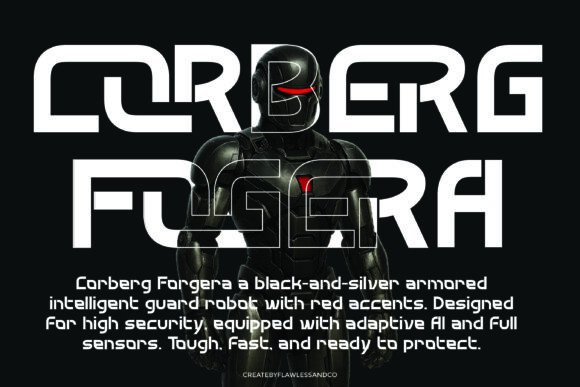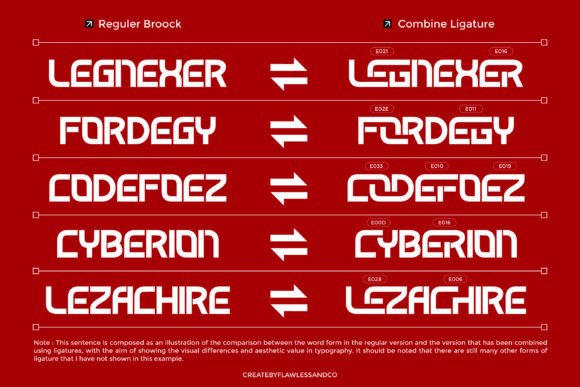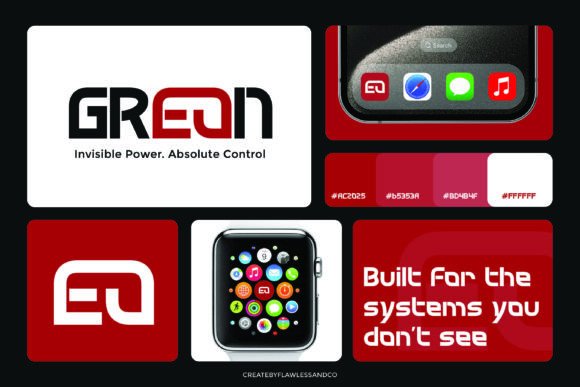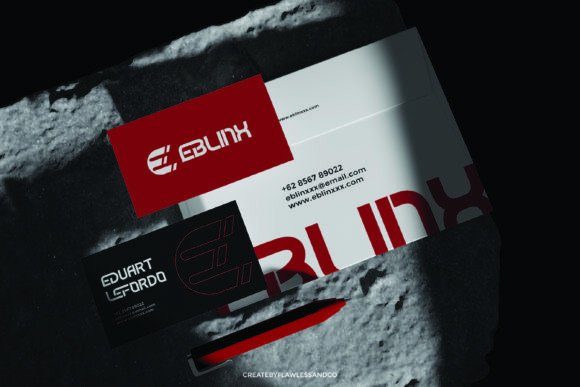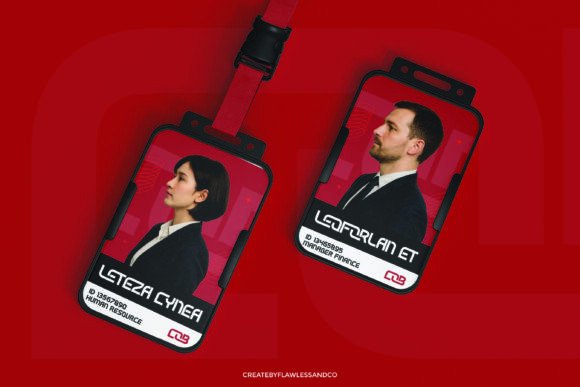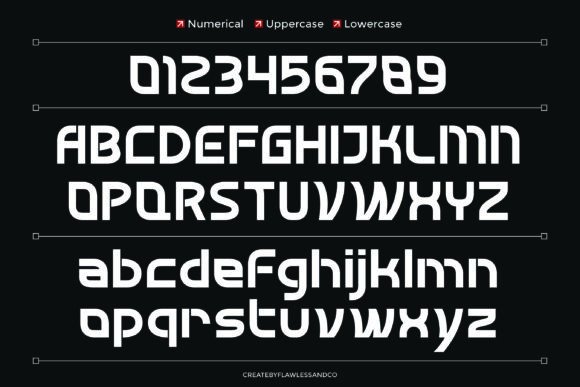
Introducing Broock Font: Elevate Your Brand Identity with Precision and Style
In the world of design, fonts play a crucial role in shaping brand identities. A well-crafted font can instantly convey a brand’s personality, values, and message. For creative professionals, finding the perfect font can be a daunting task. That’s where Broock Font comes in – a modern logo display font designed to make a statement with precision, bold character, and futuristic flair.
Clean Structure, Futuristic Form
Broock Font boasts a clean structure and futuristic form that sets it apart from other fonts. Its sleek lines, precise curves, and carefully crafted letterforms create a visually stunning effect. This font is perfect for designers and crafters looking to add a touch of modernity to their projects. Whether you’re working on a logo, branding, poster, or digital visual, Broock Font is sure to impress.
Flexibility and Originality: 50+ Ligatures and Alternates
One of the standout features of Broock Font is its extensive range of ligatures and alternates. With over 50 options, designers can experiment with different combinations to create unique and original text. This level of flexibility allows for endless creativity, ensuring that every project stands out from the crowd. Whether you’re looking to add a touch of elegance or a dash of playfulness, Broock Font has got you covered.
Perfect for Creative Professionals
Broock Font is specifically designed with creative professionals in mind. Its bold character and precision-crafted letterforms make it an excellent choice for a variety of applications, including:
- Logos: Create a lasting impression with a custom logo that showcases your brand’s personality.
- Branding: Develop a consistent visual identity across all your marketing materials.
- Posters: Grab attention with eye-catching headlines and titles.
- Digital visuals: Elevate your social media graphics, website headers, and more.
Make a Statement with Impact and Clarity
Broock Font is built to make a statement. Its bold character and clean structure ensure that your message is conveyed with impact and clarity. Whether you’re looking to create a bold headline or a subtle text overlay, Broock Font is the perfect choice. Its precision-crafted letterforms and extensive range of ligatures and alternates make it an excellent addition to any design project.
Key Features of Broock Font
- Modern logo display font
- Precision-crafted letterforms
- Bold character and clean structure
- Futuristic form
- 50+ ligatures and alternates
- Flexible and original
- Perfect for logos, branding, posters, and digital visuals
Broock Font is a game-changer for designers and crafters looking to elevate their brand identities. Its precision-crafted letterforms, bold character, and extensive range of ligatures and alternates make it a standout choice for creative professionals. With Broock Font, you can create stunning visual effects that make a lasting impression. Whether you’re working on a logo, branding, poster, or digital visual, Broock Font is the perfect addition to your design toolkit.